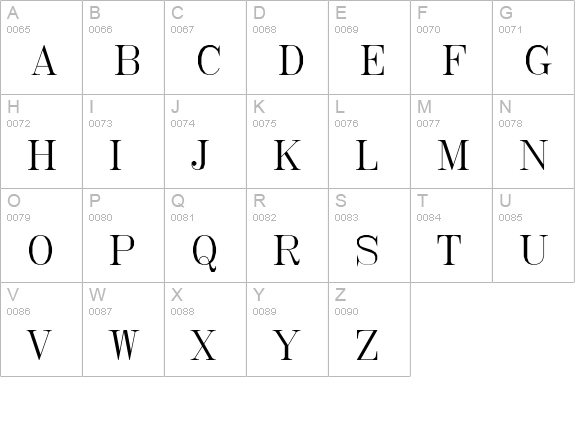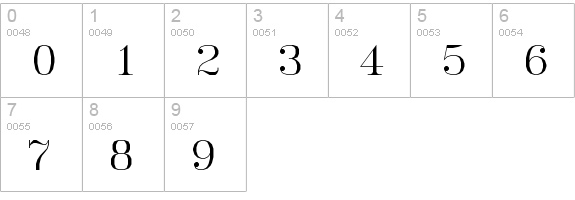
RomanT Font Details
RomanT is a classic and elegant serif font that exudes sophistication and timelessness. With its clean lines and timeless appeal, RomanT is perfect for a wide range of design projects, from branding to editorial design. This versatile font is ideal for creating a sense of tradition and gravitas in your work. The best part? RomanT is available for free download at FontsMarket.com, making it accessible to all designers looking to add a touch of elegance to their projects. Whether you're working on a print design, a website, or any other creative project, RomanT is sure to elevate your work with its timeless aesthetic. Download RomanT today and add a touch of classic sophistication to your designs.